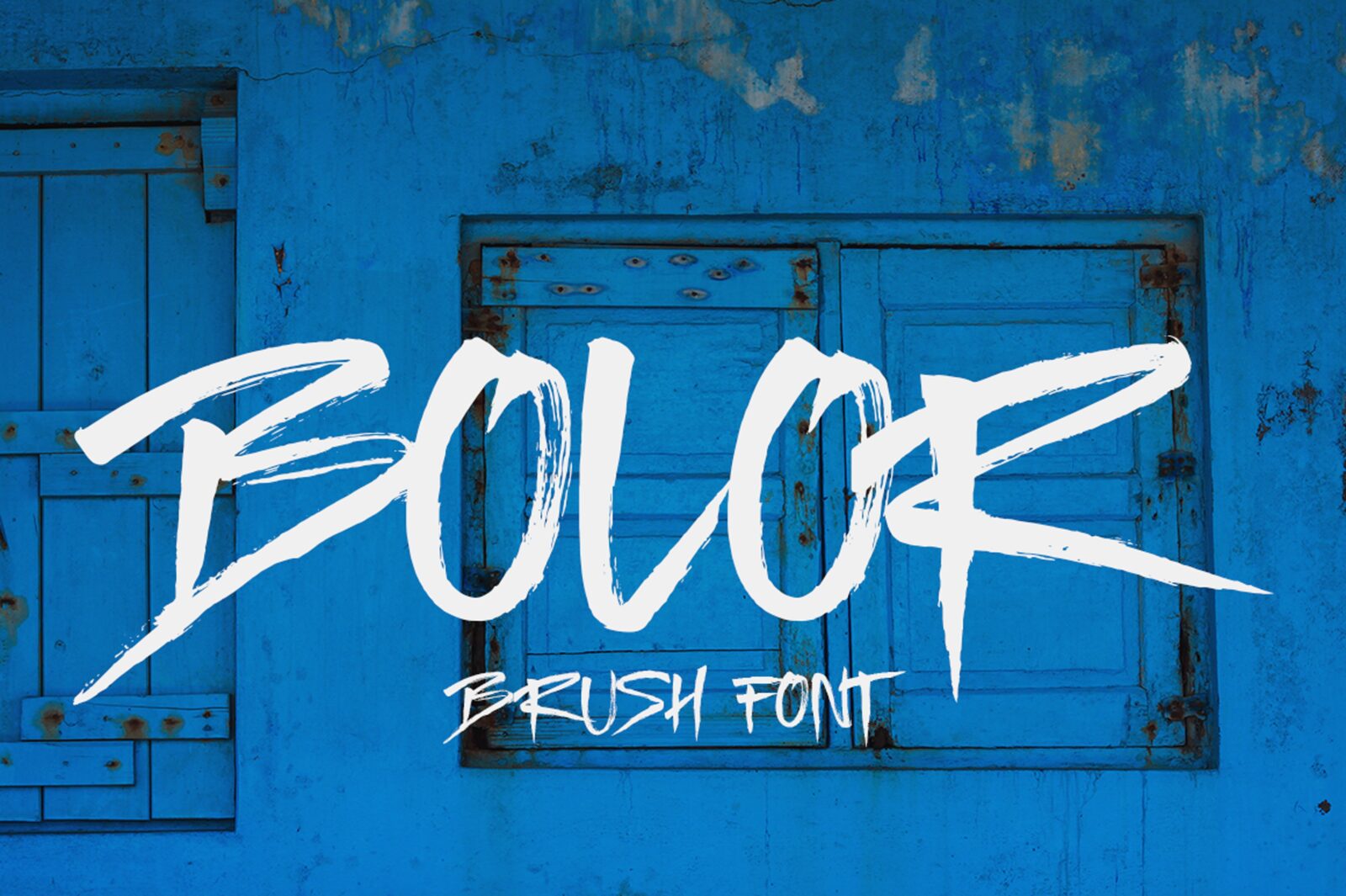
The Bolor Font: A Handmade Brush with a Unique Authentic Style
I still remember the design project that led me to discover the Bolor font. I was working on a branding project for a local artisan, and I was struggling to find the perfect font that could capture the essence of their handmade products. The client wanted something that felt authentic, unique, and bespoke. After hours of searching, I stumbled upon Bolor, and it was love at first sight. The font’s handmade brush style and authentic feel resonated perfectly with the project’s requirements.
An Honest Review of Bolor Font
What I Love About Bolor Font
- ✨ Unique and authentic handmade brush style that adds a personal touch to any project
- ✅ Easy to use and pairs well with a variety of design elements, from corporate to personal projects
- 💫 Features a wide range of OpenType features, glyphs, and stylistic alternates that offer flexibility and creativity
- 🎨 Perfect for designers, crafters, and creative hobbyists looking for a font that stands out
While Bolor font is an excellent choice for many projects, there are a few quirks to be aware of:
- ⚠️ Some users may find the font’s handmade style too distressed or rough for certain applications
- 🤔 The font’s uniqueness may not be suitable for projects requiring a more traditional or formal look
The Story Behind Bolor Font
Bolor font was designed with the intention of capturing the essence of handmade craftsmanship. The font’s creator wanted to create a typeface that felt authentic, unique, and bespoke. The result is a font that is perfect for designers, crafters, and creative hobbyists looking for a font that stands out.
| Font Name | Bolor Font |
| Author | Pineungtype & Missinklab |
| What is Bolor font? | Bolor font is a handmade brush font with a unique, authentic style. |
| Is Bolor font suitable for corporate projects? | Yes, Bolor font can be used for corporate projects, but it may not be suitable for projects requiring a more traditional or formal look. |
| Can I use Bolor font for personal projects? | Absolutely! Bolor font is perfect for personal projects, such as invitations, cards, and crafts. |
| Does Bolor font support OpenType features and glyphs? | Yes, Bolor font features a wide range of OpenType features, glyphs, and stylistic alternates. |